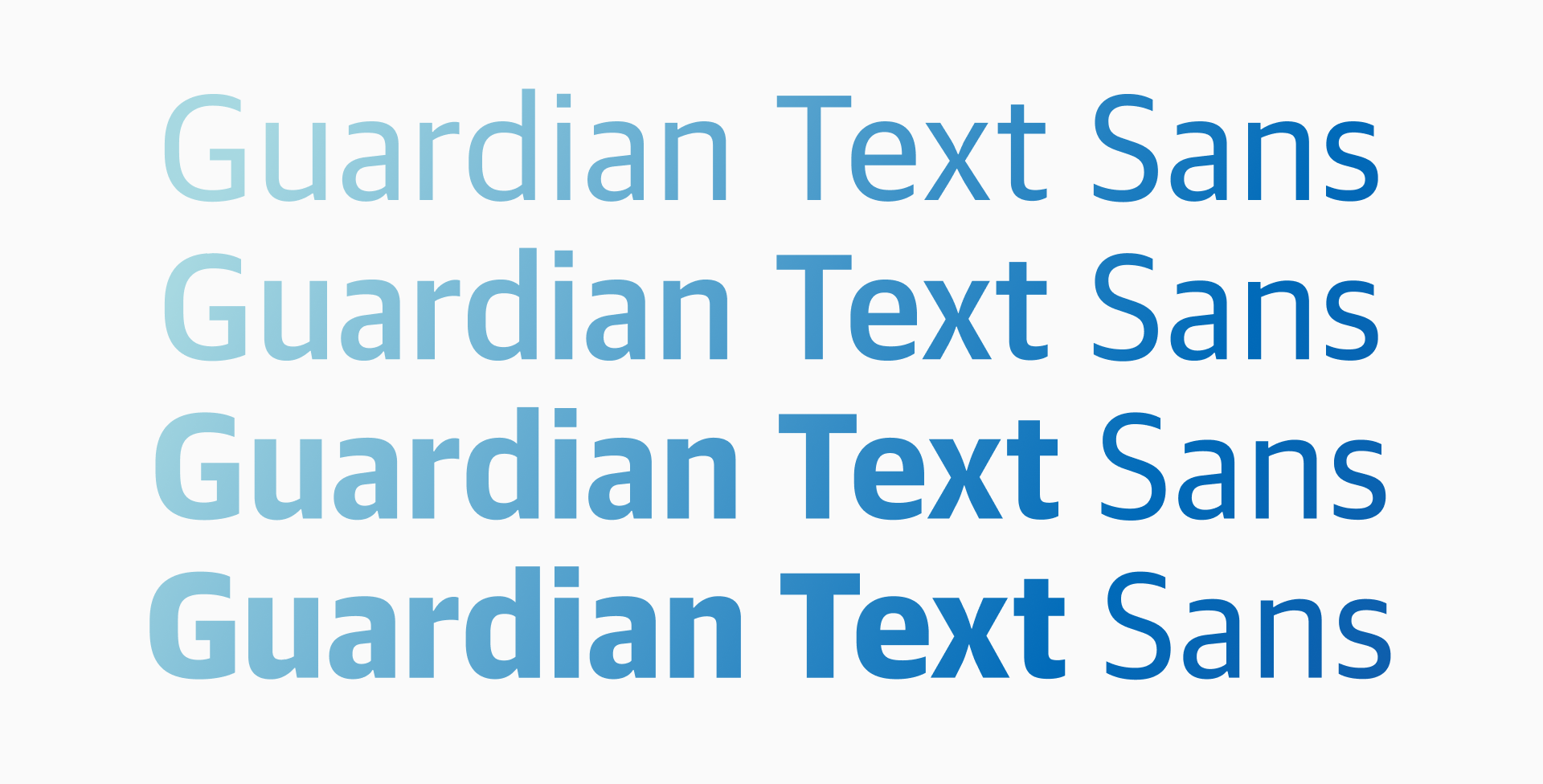
What happens when you try to make a new sans serif by chopping the slabs off of an egyptian? That was the original inspiration behind this modern classic designed for the Guardian newspaper. Comprised of four interrelated families: an Egyptian for headlines; a Text Egyptian; a Sans for headlines in 4 widths; and a Text Sans, every possible typographic need of a daily paper is fulfilled. Serious news headlines, expressive features, readable text, tiny financial listings, infographics, and everything in between can be capably handled with ease.
Released in 2009, the collection still feels contemporary and has appeared not only on the pages of The Guardian, but also in a Metropolitan Museum Exhibition and on the stage of St.Gallen Theater.
Guardian was the first common project of the Commercial Type founders Christian Schwartz and Paul Barnes, art directed by Mark Porter. Cyrillic for the Guardian Collection was drawn by Ilya Ruderman (CSTM Fonts) and Guardian Sans was designed with the help of Berton Hasebe and Vincent Chan.
Guardian Egyptian
Mixing the contemporary with the traditional, the Guardian Egyptian family combines stylish Continental shapes with the no-nonsense proportions of the traditional British Egyptian. Although originally designed for use in newspapers, its wide range of weights make it flexible enough for all types of publication design, corporate identity, and signage systems.
Guardian Egyptian Text
Taking its basic form from the Egyptian, but with a completely rethought italic, Guardian Egyptian Text works perfectly in smaller sizes and is robust enough to cope with adverse printing. A comprehensive character set, including small capitals, fractions and mathematical symbols, it is perfect for even the most complicated of typographic problems.
Guardian Sans
While the very lightest and heaviest weights of Guardian Sans have quite a bit of personality, the rest of the family has been designed for respectable neutrality. Its unadorned forms make it a typographic chameleon, able to combine well with a wide range of typefaces.
Guardian Sans Text
Guardian Text Sans has squarer bowls than the headline version, ensuring that the characters remain very open and readable in text. Its extensive character set, matching the Egyptian Text, will fulfill even the most difficult of typographic tasks, making it especially suited to the problems of complicated information.